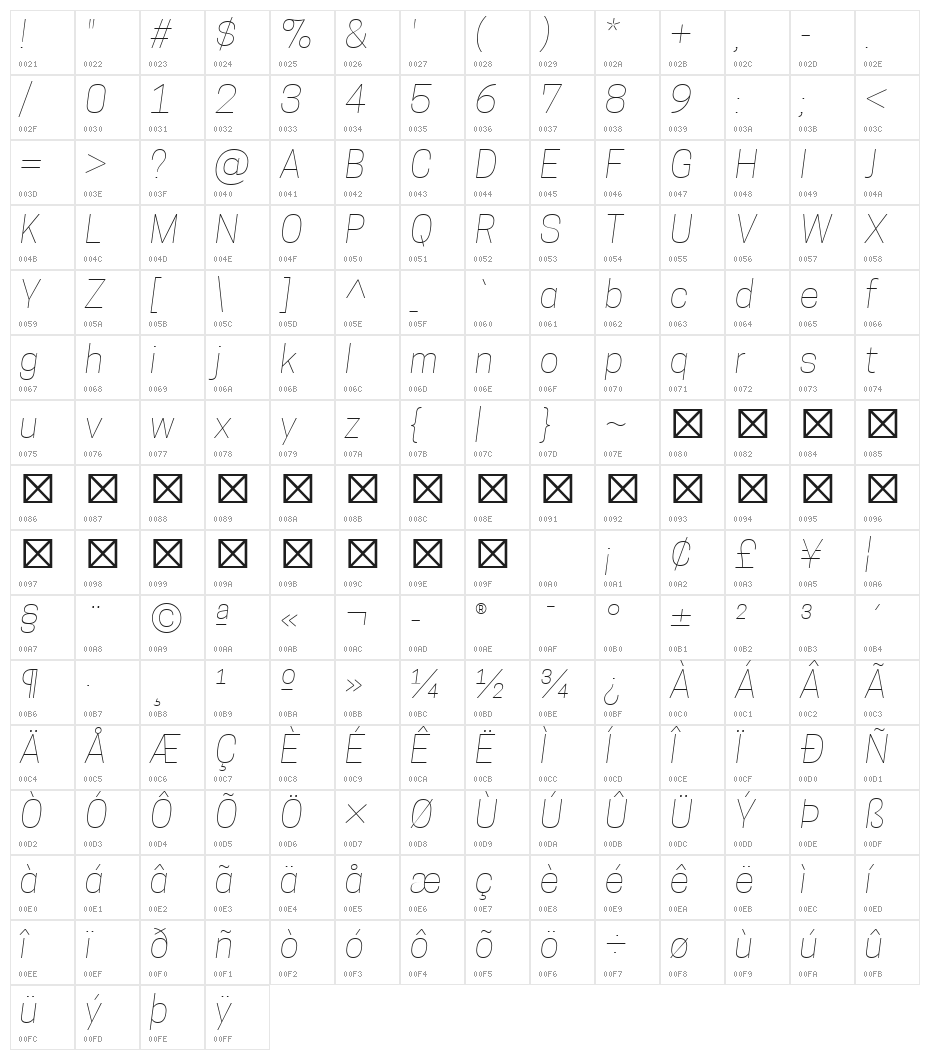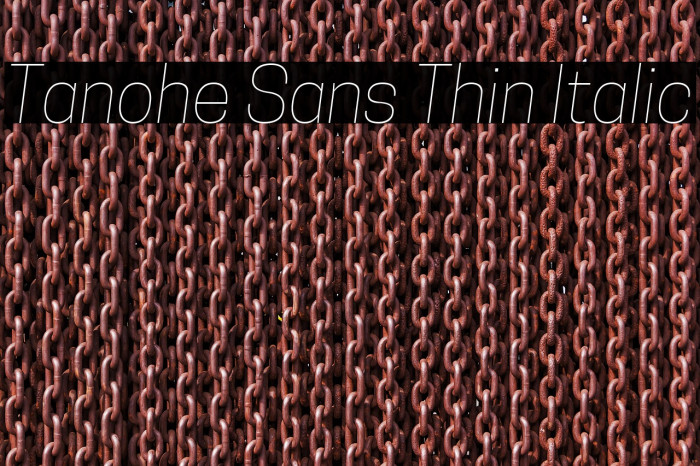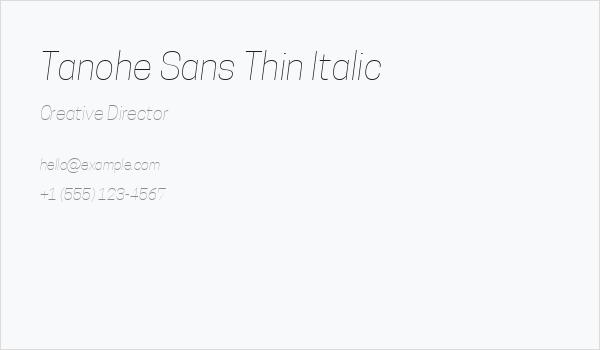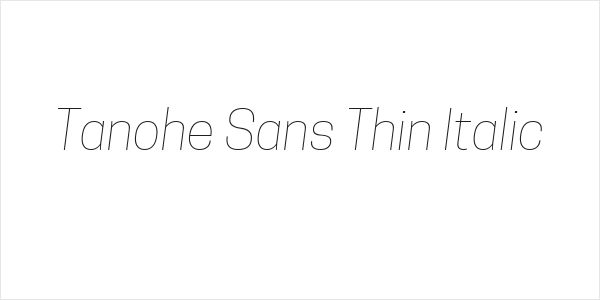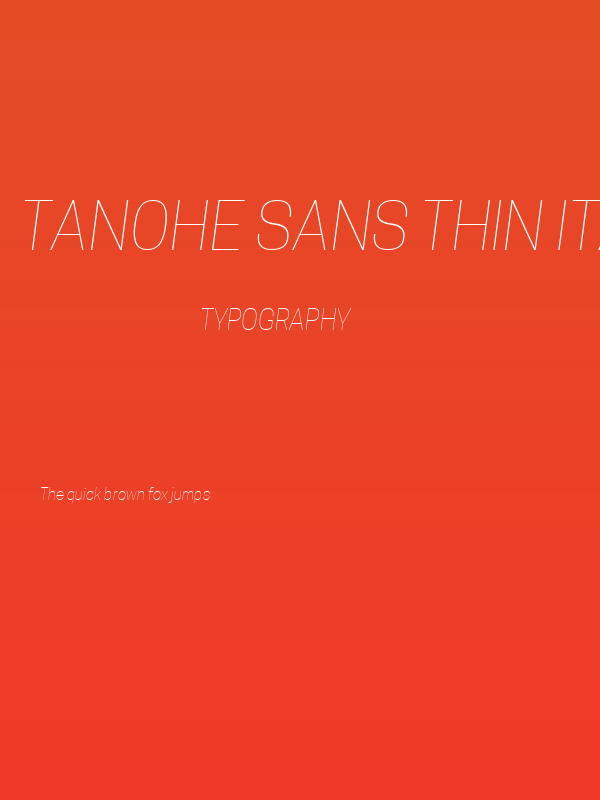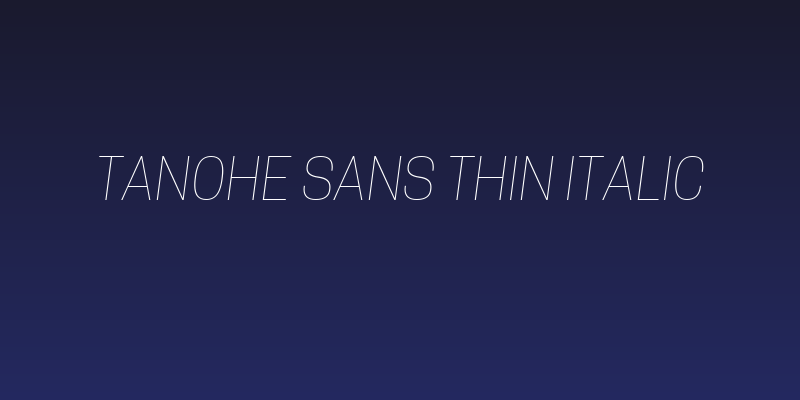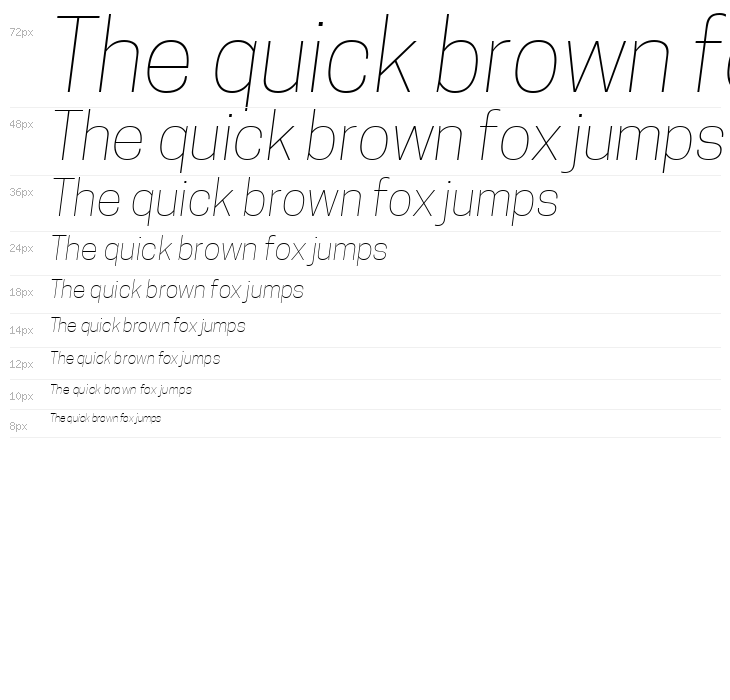
Tanohe Sans Thin Italic Font
Tanohe Sans Thin Italic Description
This font features a sleek and modern design with thin, elegant lines. The characters are slightly slanted, giving it an italicized appearance. Its minimalist style is achieved through uniform stroke widths and a clean, uncluttered look. The uppercase and lowercase letters maintain a consistent height and spacing, contributing to a harmonious and balanced aesthetic. The numerals and special characters are designed to complement the alphabet, ensuring readability and style consistency across all text elements.
| Proposed Projects | Ideal for modern branding, minimalist design projects, elegant invitations, and sleek website headers. |